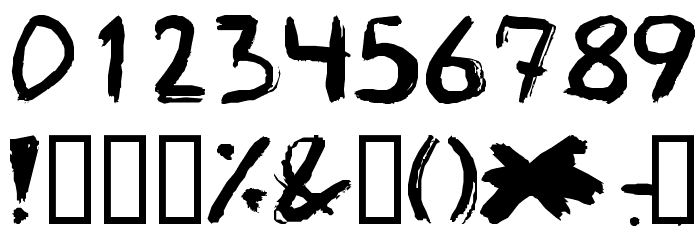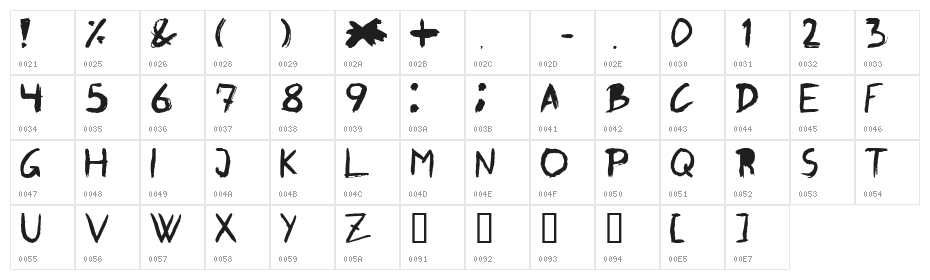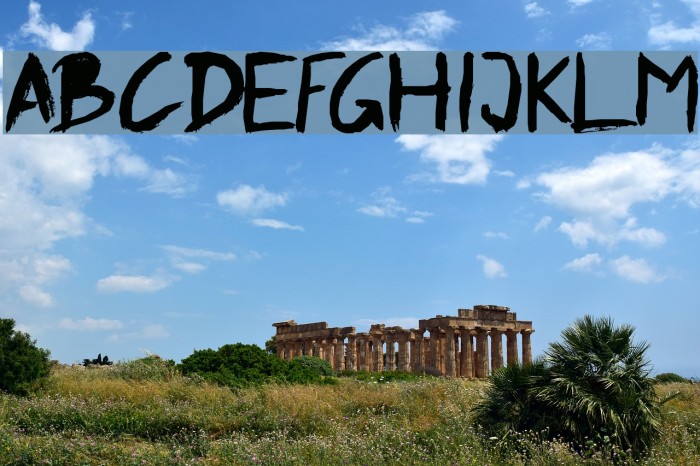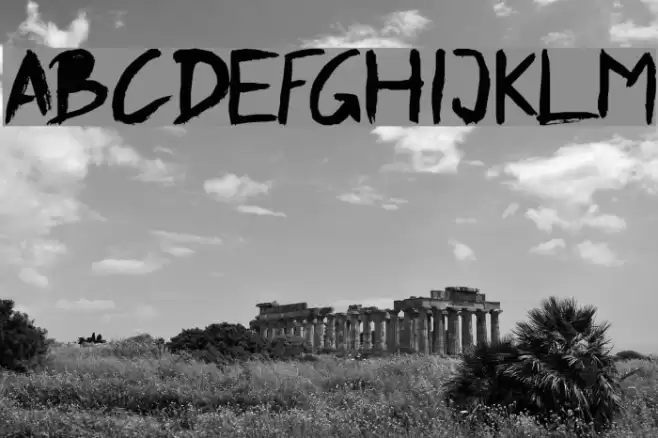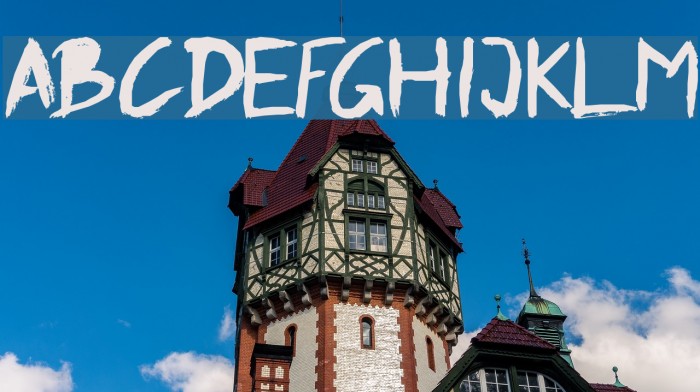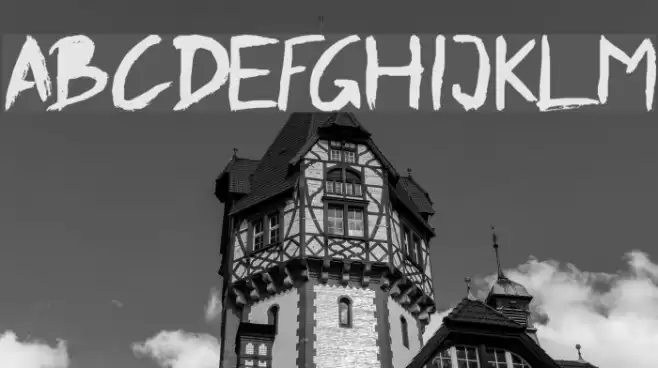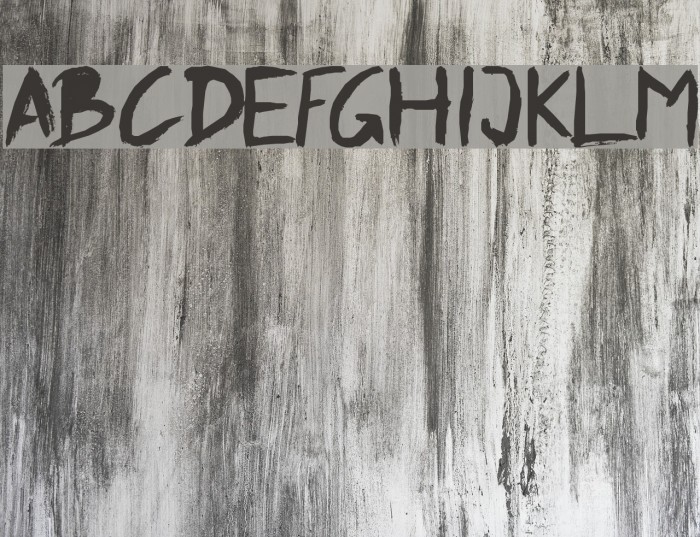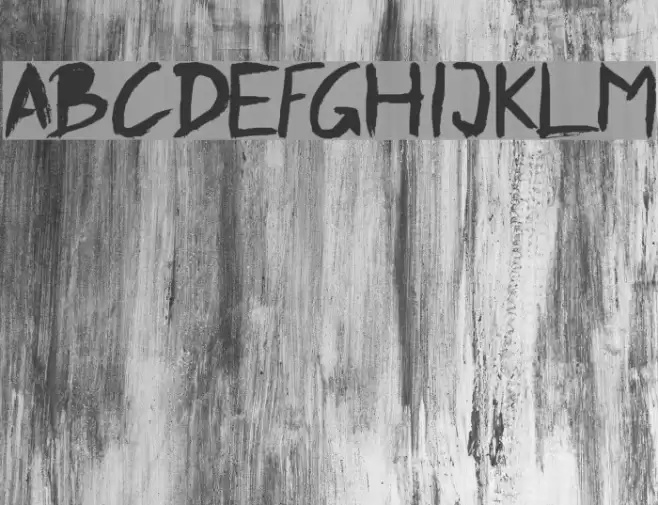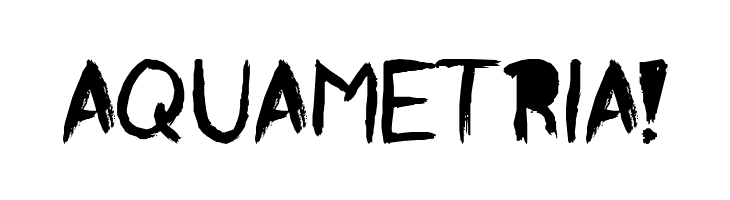
Graffito Font
Graffito Description
This font exudes a bold and expressive style, reminiscent of graffiti art with its brush-like strokes and dynamic energy. The uppercase letters are crafted with a sense of movement and spontaneity, each character appearing as if it was painted with a swift, confident hand. The numbers and special characters maintain this energetic flair, adding a sense of urgency and creativity to the overall design. The font's rough edges and varying stroke widths contribute to its raw, urban aesthetic, making it perfect for projects that require a touch of rebellion and artistic flair.
| Overall Style | Modern, Urban |
| Proposed Projects | Ideal for street art-inspired designs, music album covers, edgy branding, and event posters. |